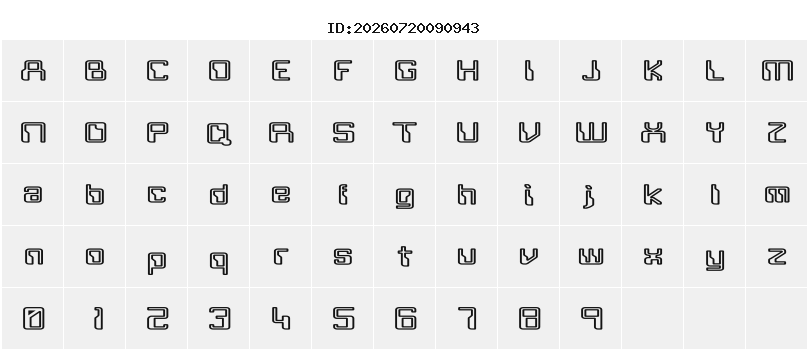
Future HE Bold Preview
• Font Name: Future HE Bold
• Full Font Name: Future HE Bold
About Future HE Bold.ttf
Future HE Bold.ttf is a modern, elegant sans-serif font designed for ultimate readability and visual harmony. Perfect for branding, headlines, web design, and print materials.